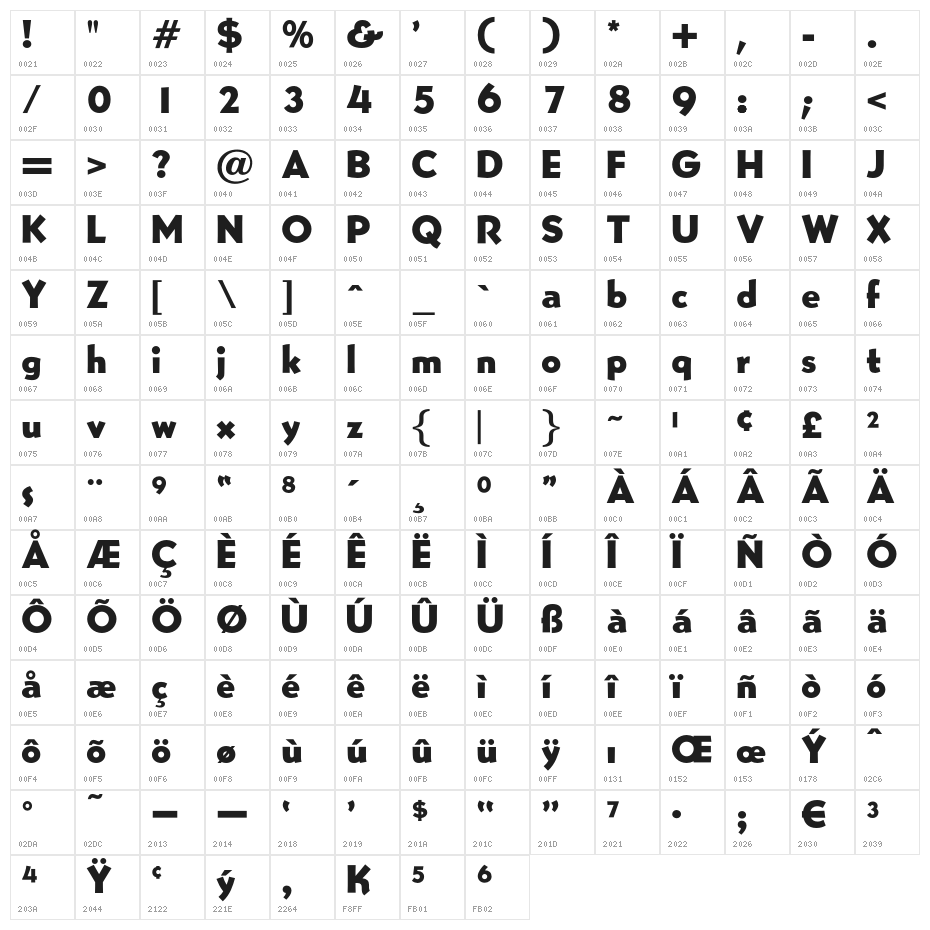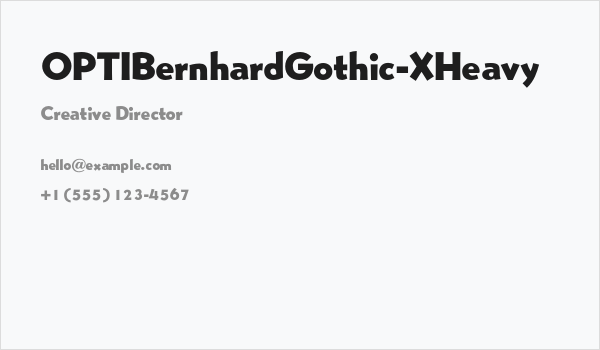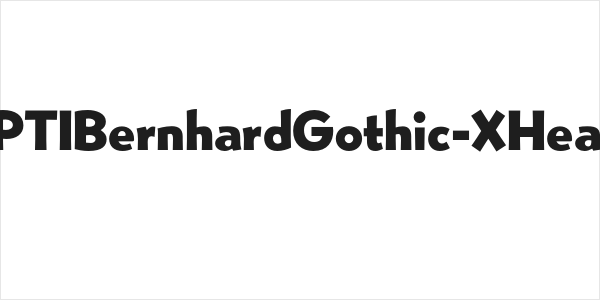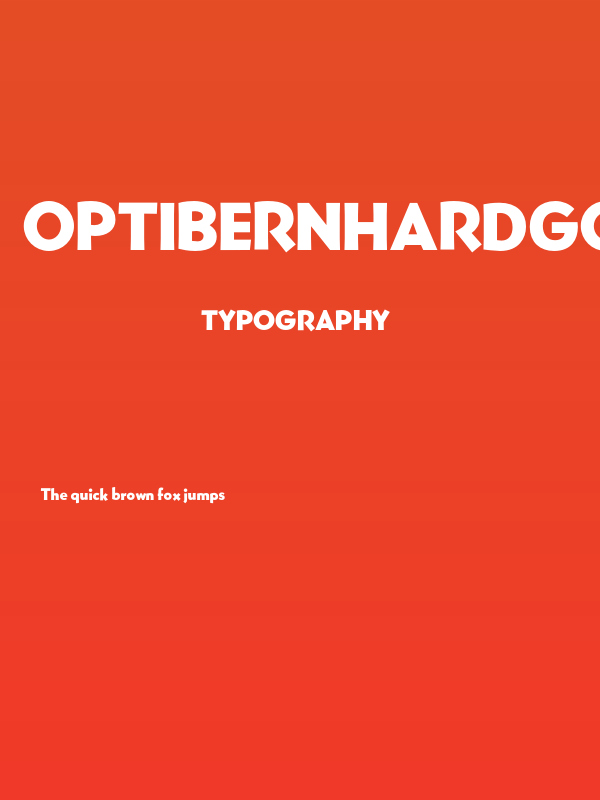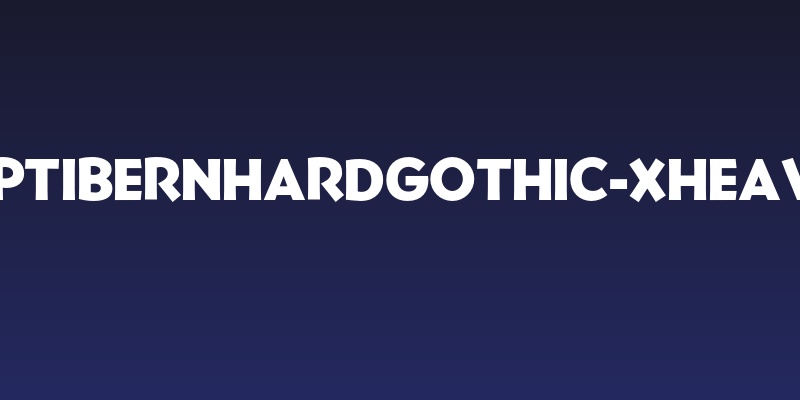
OPTIBernhardGothic-XHeavy Font
OPTIBernhardGothic-XHeavy Description
This typeface features bold, geometric letterforms with a strong presence. The uppercase letters are characterized by their uniform stroke width and clean, sharp edges, giving them a modern and assertive appearance. The lowercase letters maintain the boldness, with rounded curves that add a touch of softness to the overall design. The numerals are equally bold and consistent, ensuring readability and impact. Special characters are well-integrated, maintaining the font's cohesive style. The font's heavy weight and solid structure make it ideal for attention-grabbing headlines and impactful designs.
Proposed ProjectsIdeal for branding, poster design, headlines, and any project requiring a strong visual impact.